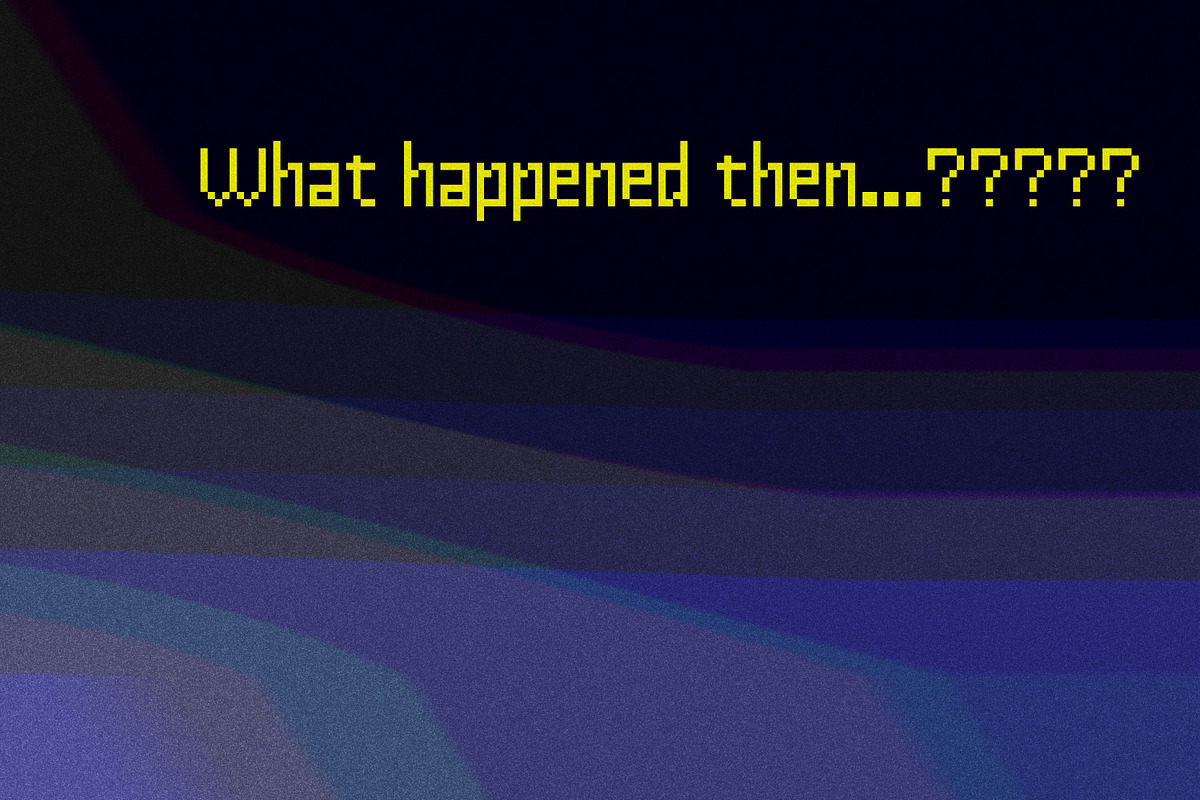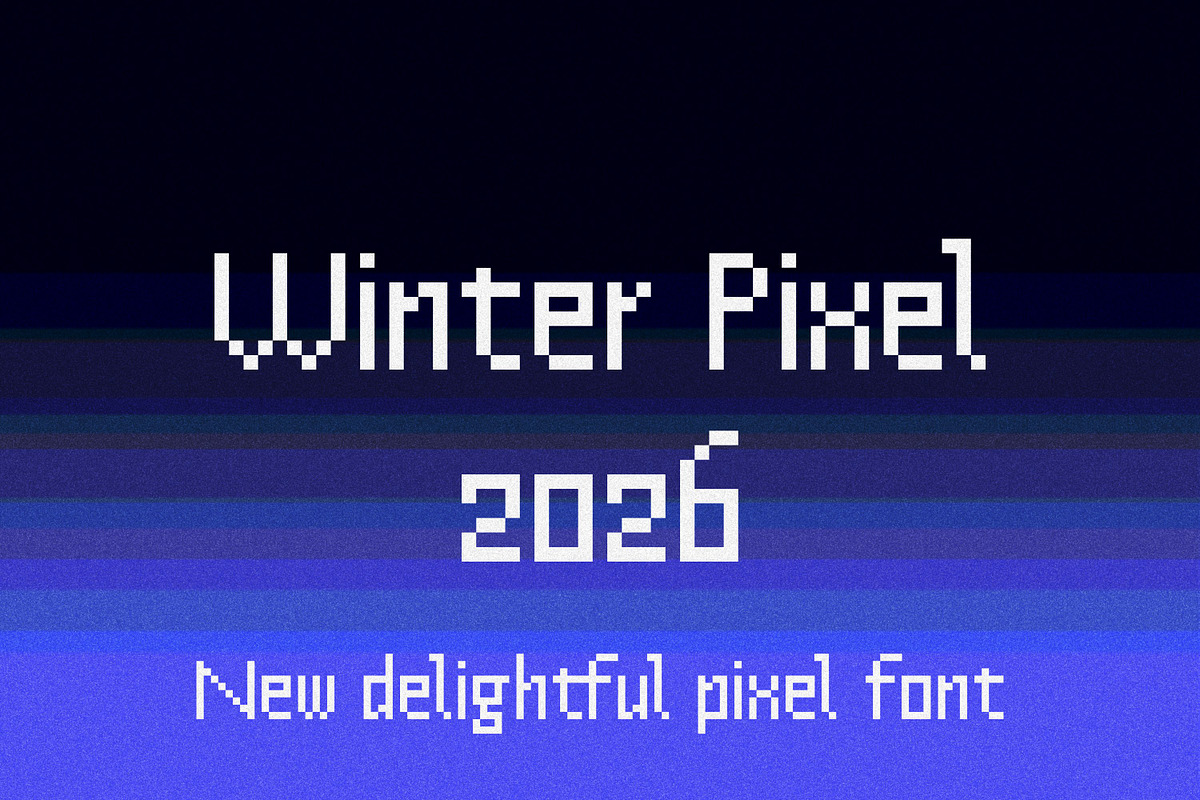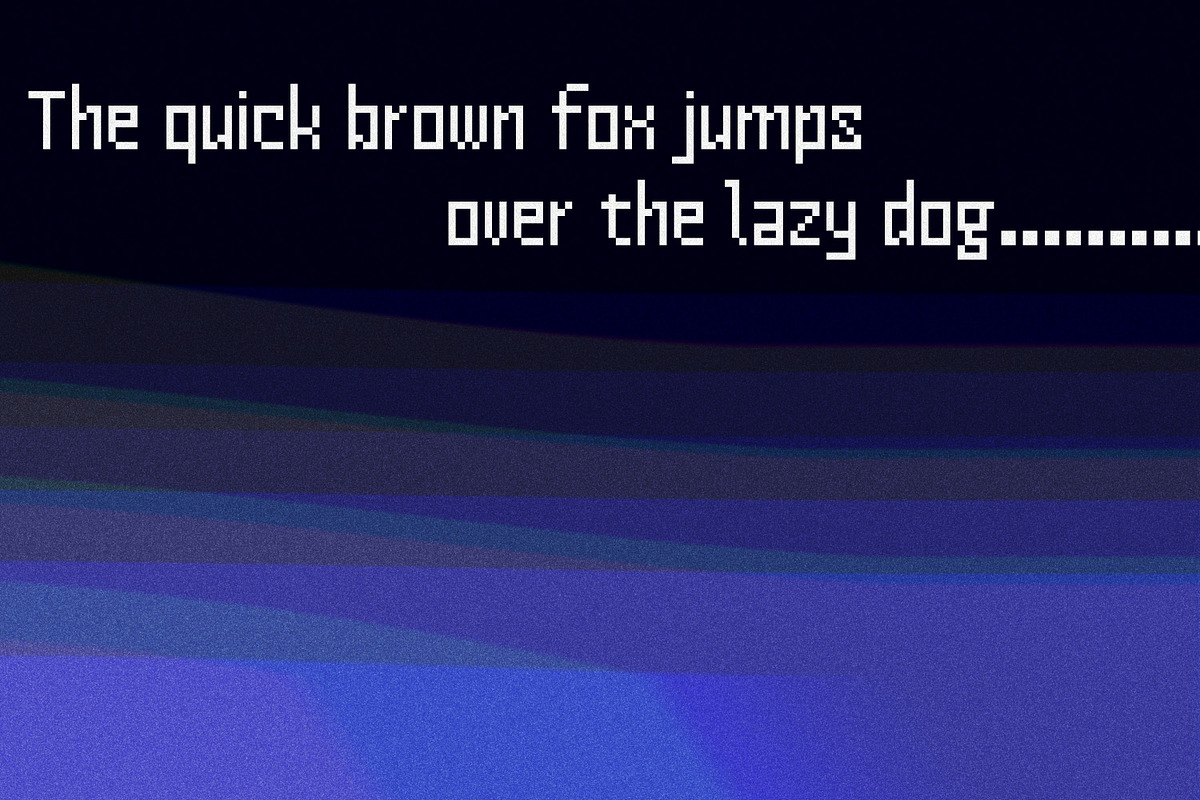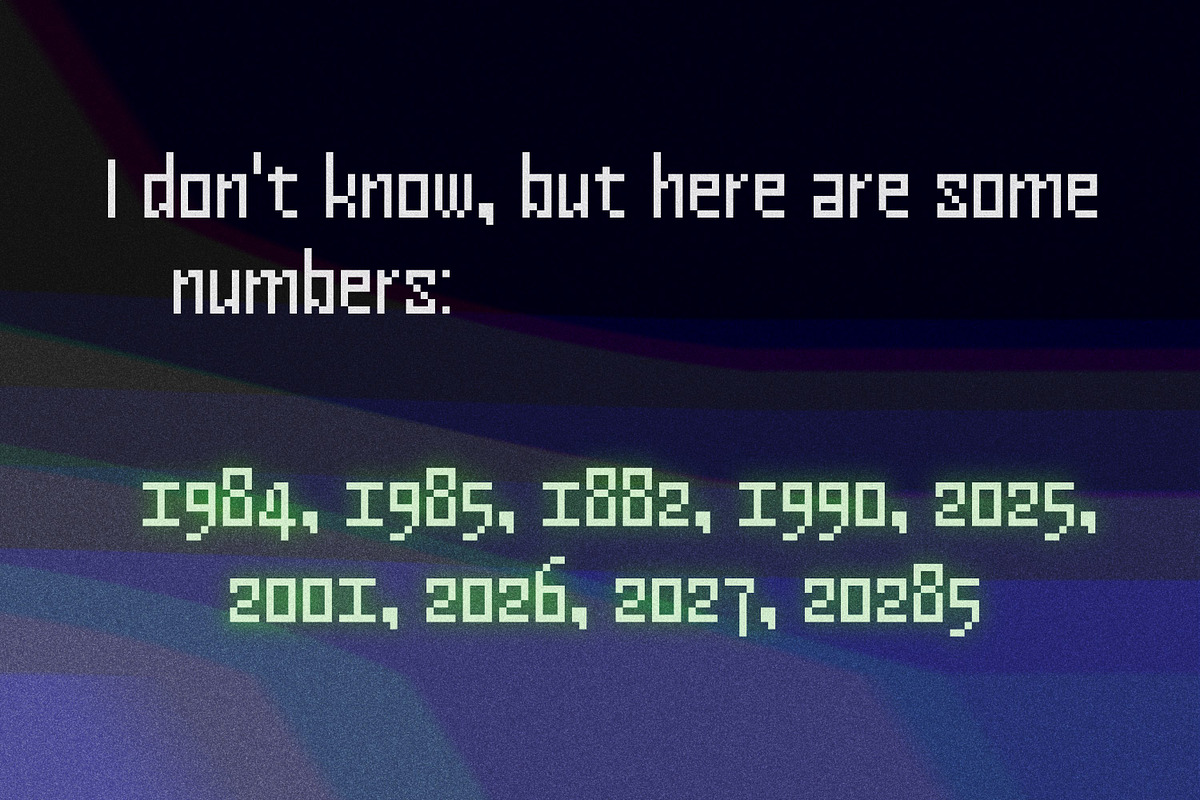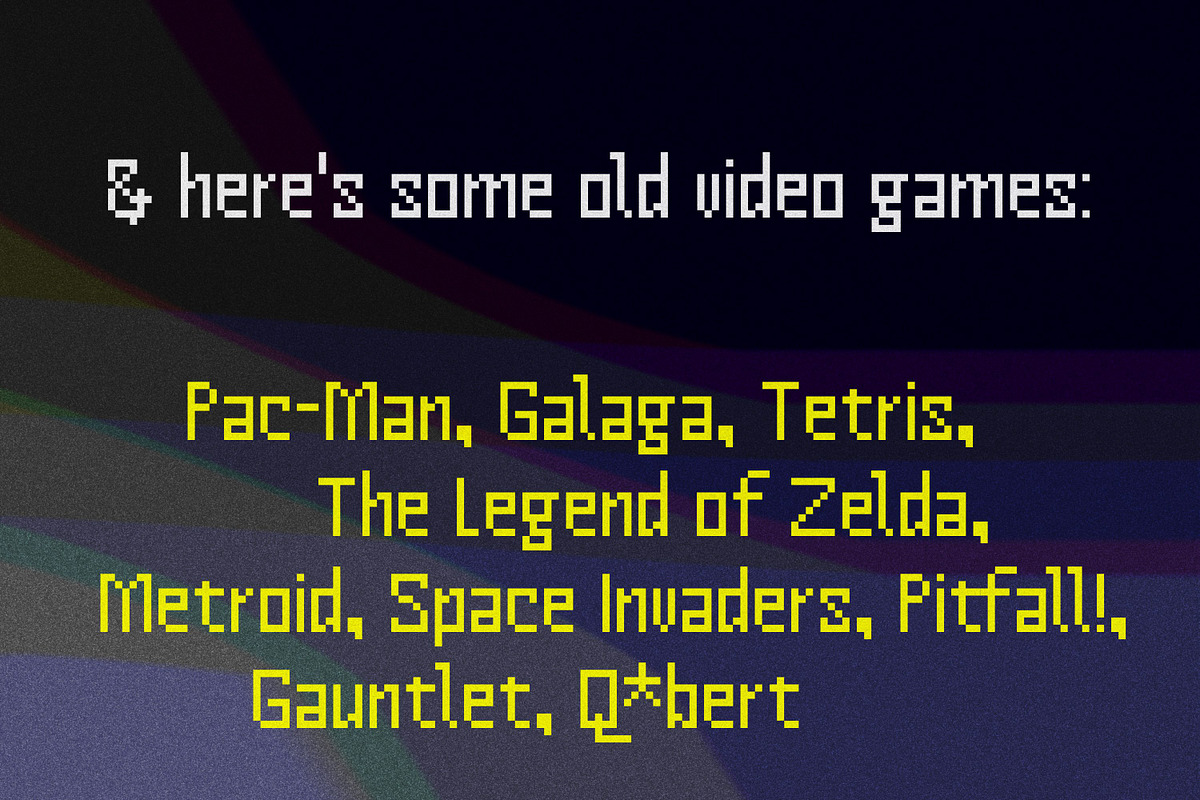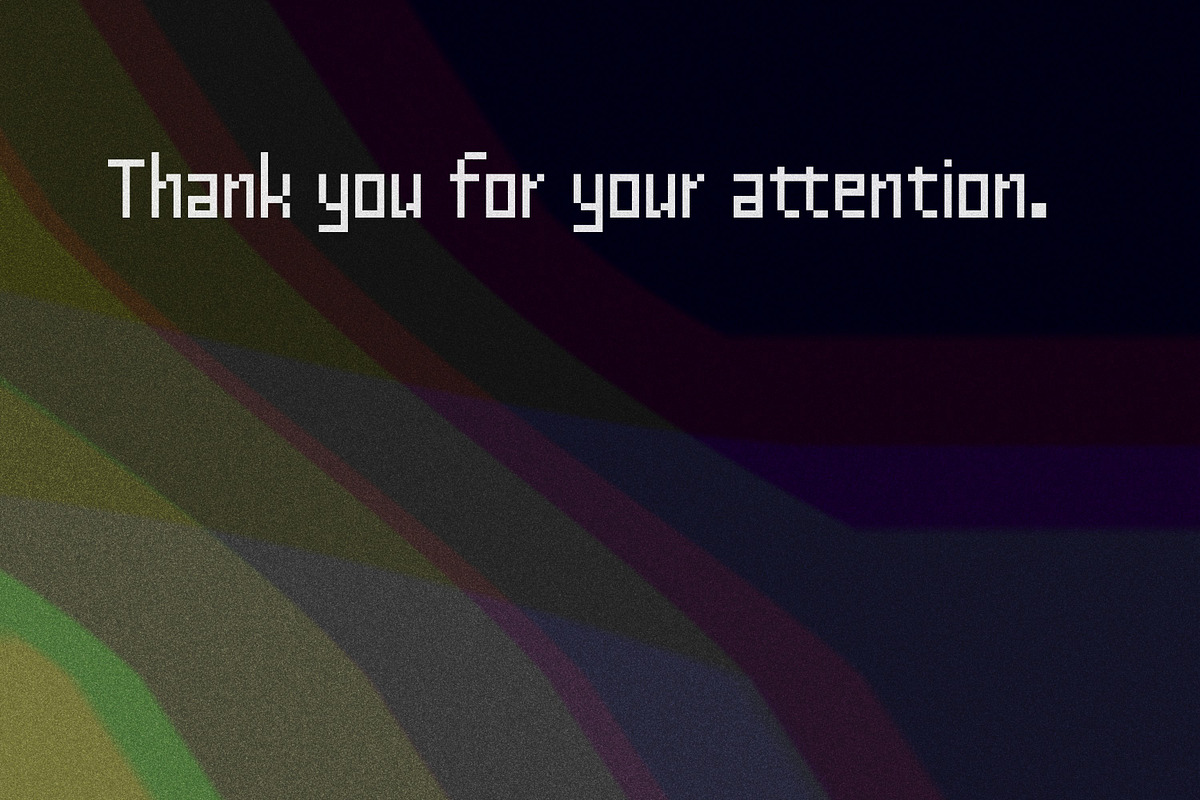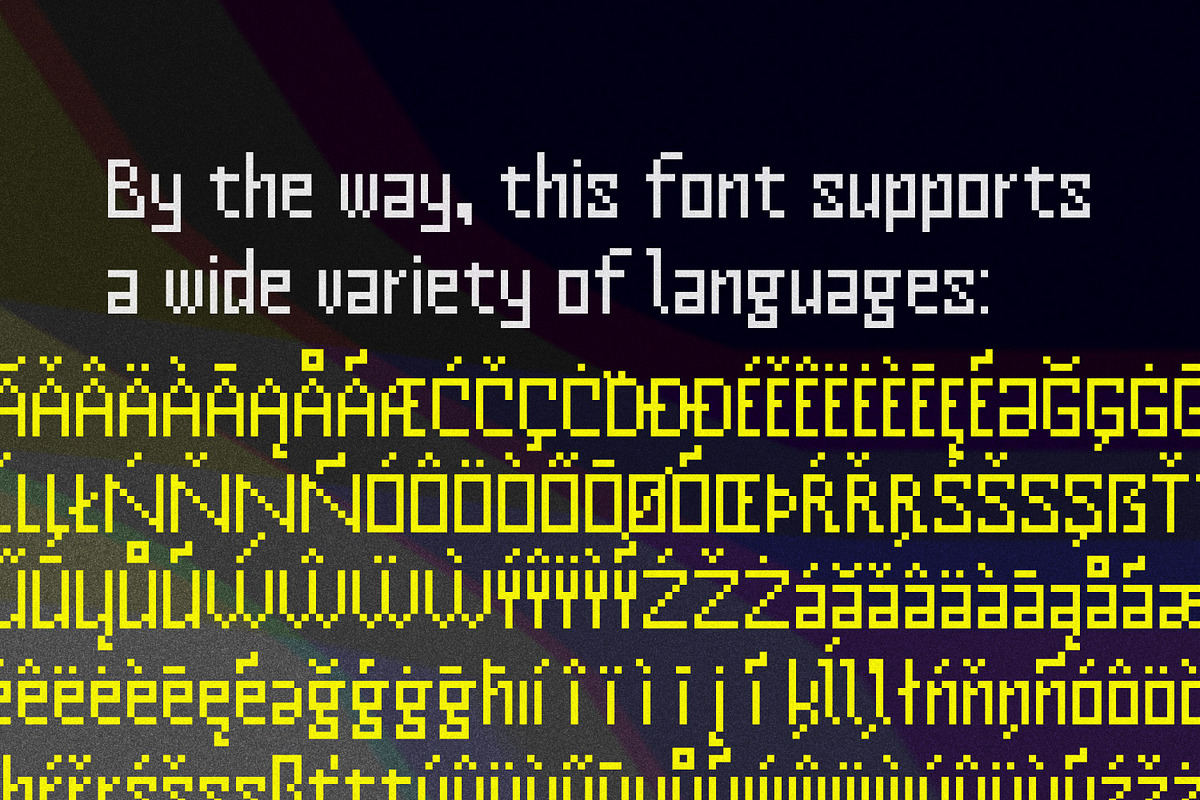
Winter Pixel 2026
Pixel font for all the pixelated needs.
Supported languages (according to fontdrop.info):
Afrikaans Albanian Asu Basque Bemba Bena Breton Chiga Colognian Cornish Croatian Czech Danish Dutch Embu English Estonian Faroese Filipino Finnish French Friulian Galician German Gusii Hungarian Icelandic Indonesian Irish Italian Kabuverdianu Kalenjin Kamba Kikuyu Kinyarwanda Latvian Lithuanian Lower Sorbian Luo Luxembourgish Luyia Machame Makhuwa-Meetto Makonde Malagasy Maltese Manx Meru Morisyen North Ndebele Norwegian Bokmål Norwegian Nynorsk Nyankole Oromo Polish Portuguese Quechua Romanian Romansh Rombo Rundi Rwa Samburu Sango Sangu Scottish Gaelic Sena Serbian Shambala Shona Slovak Slovenian Soga Somali Spanish Swahili Swedish Swiss German Taita Teso Turkish Upper Sorbian Uzbek (Latin) Volapük Vunjo Walser Welsh Western Frisian Zulu